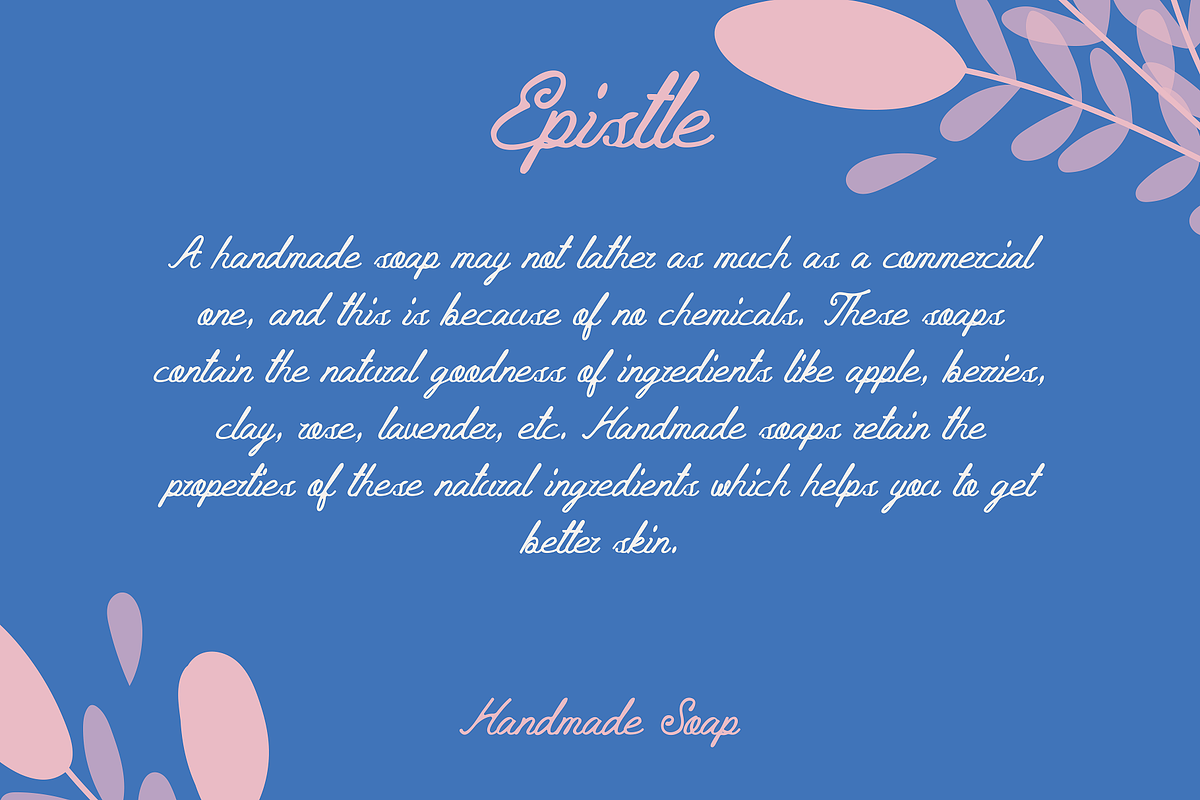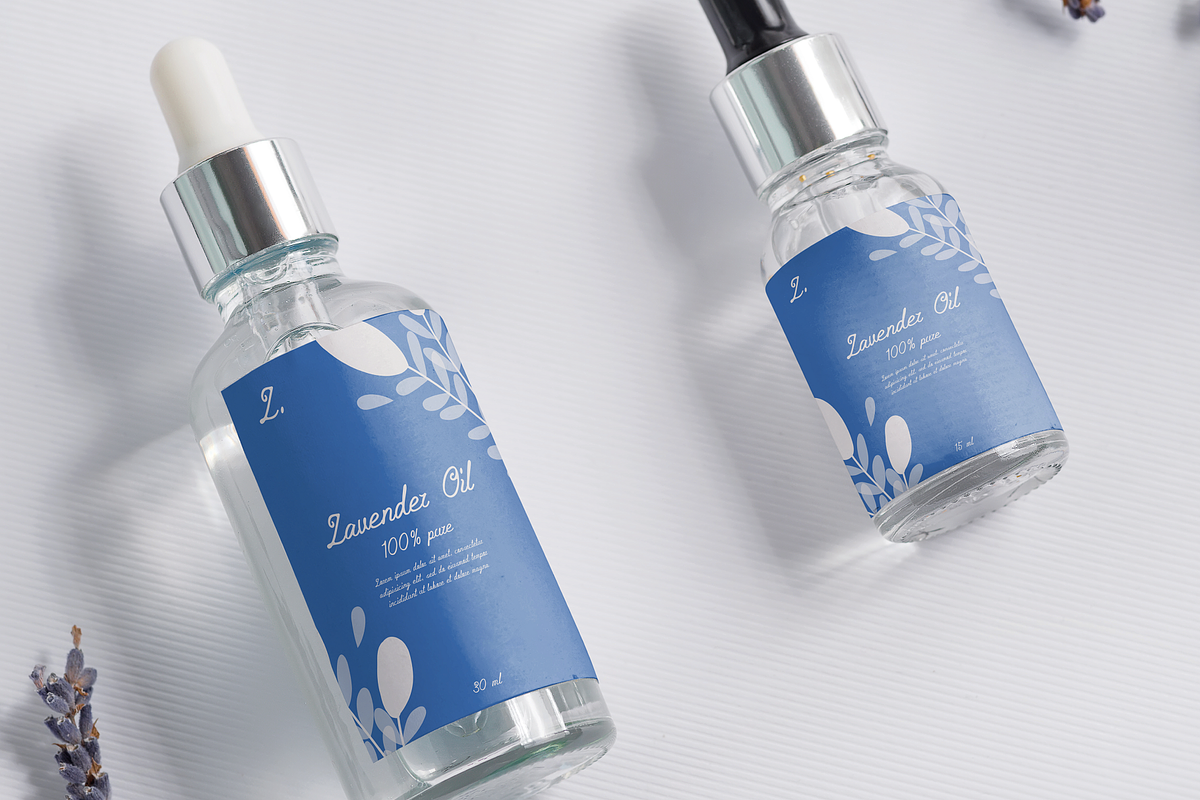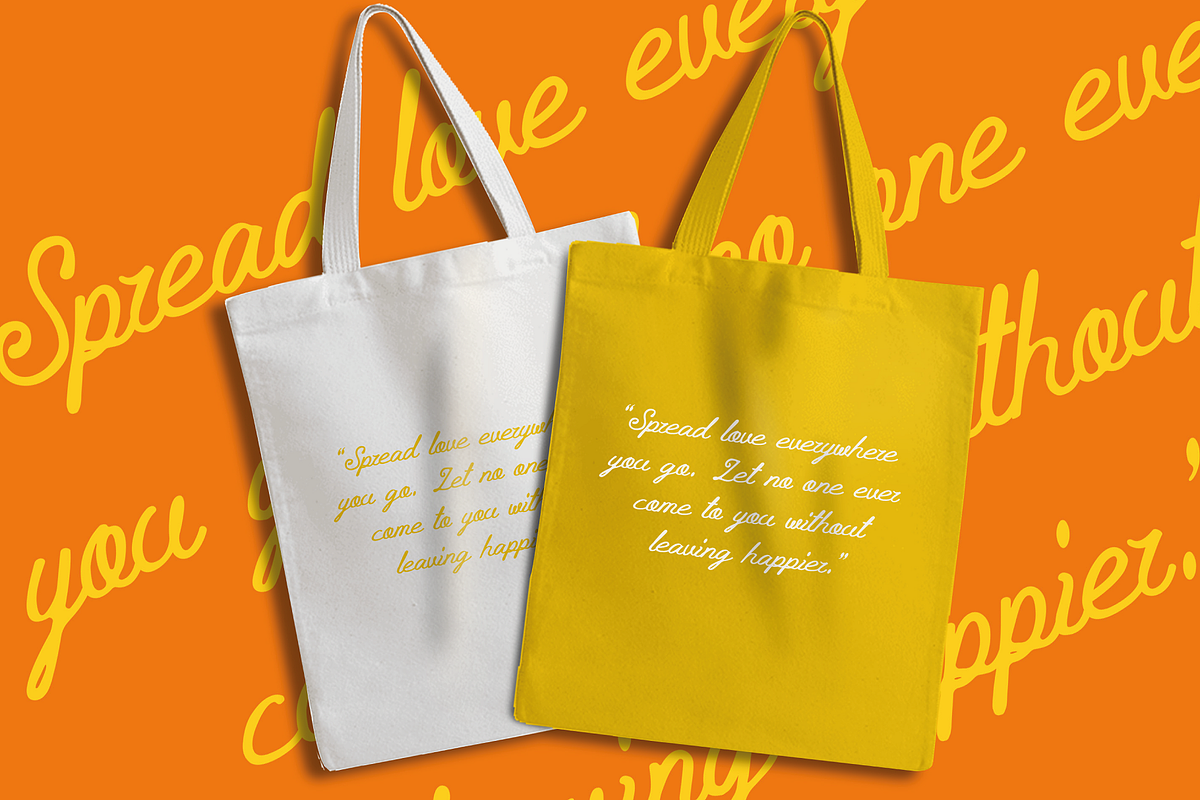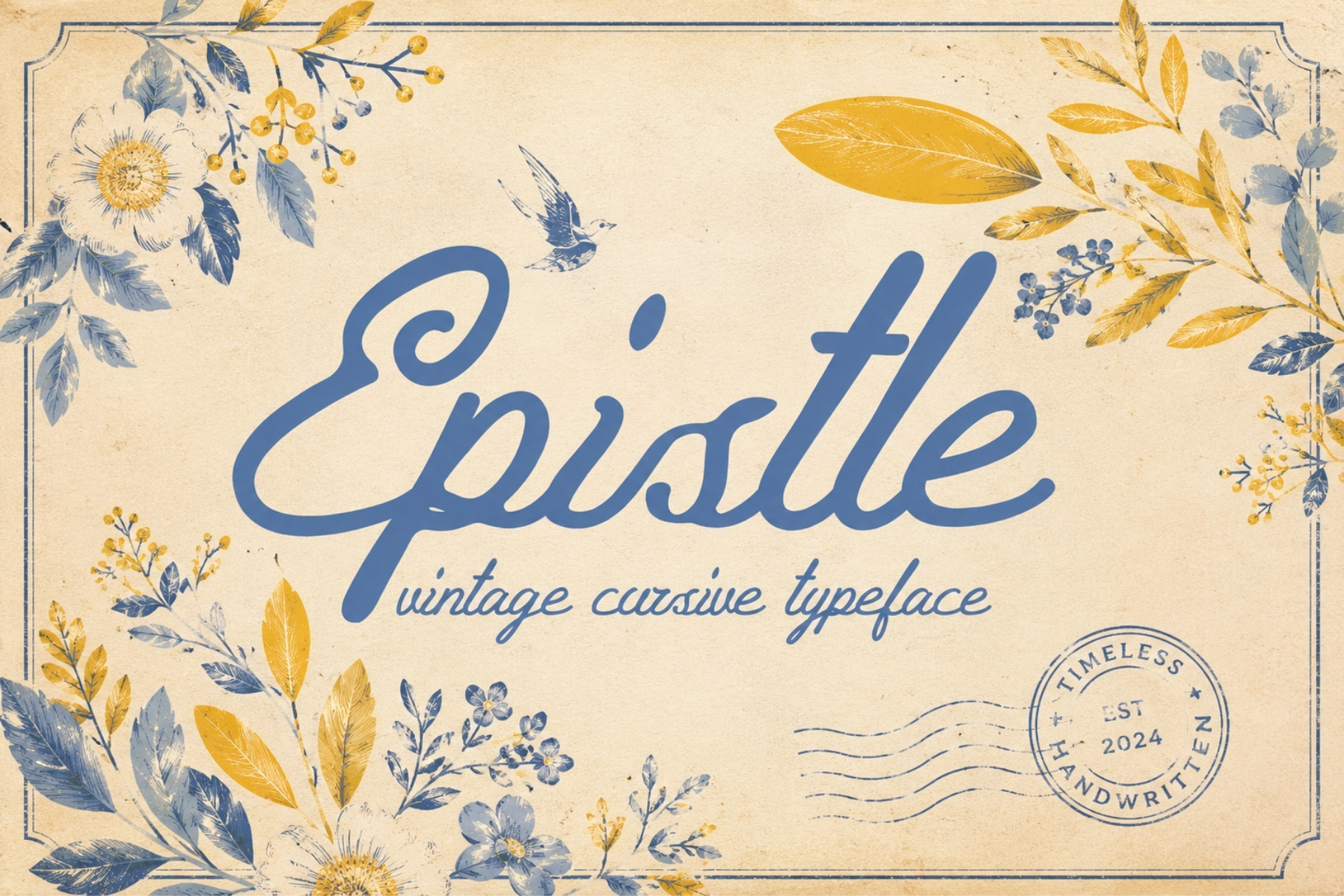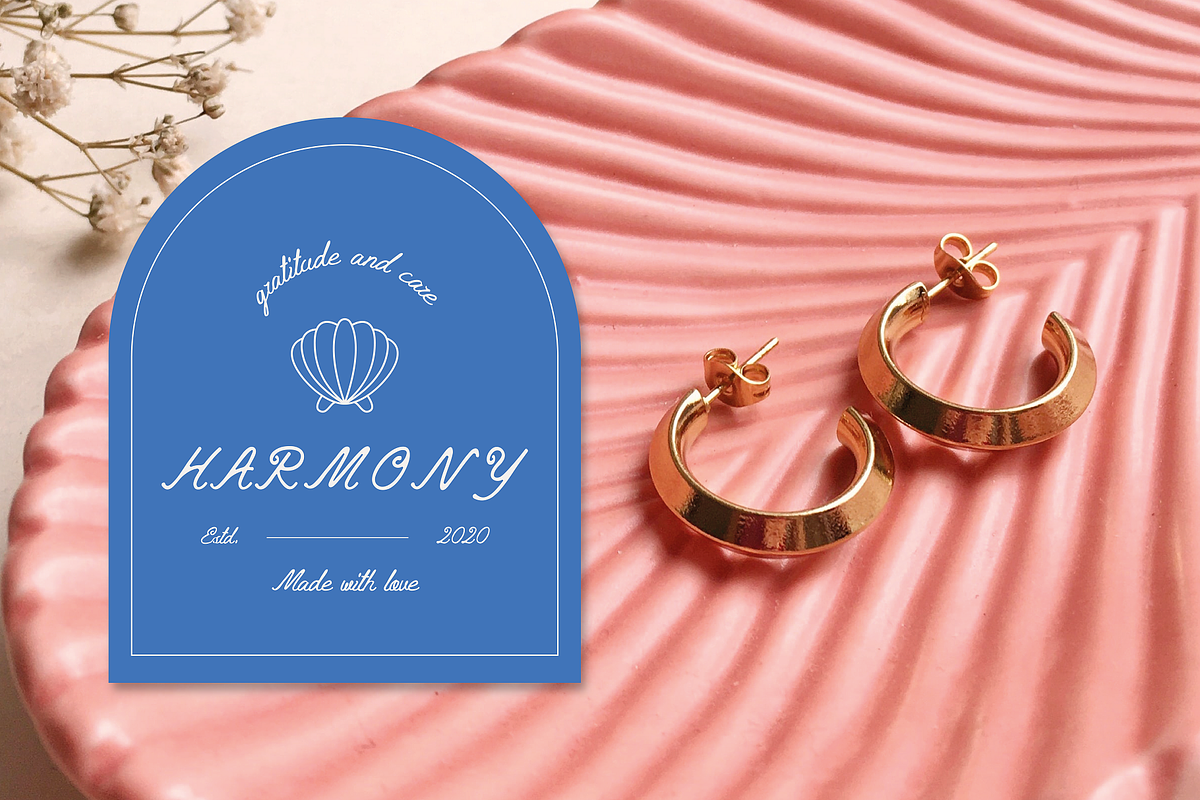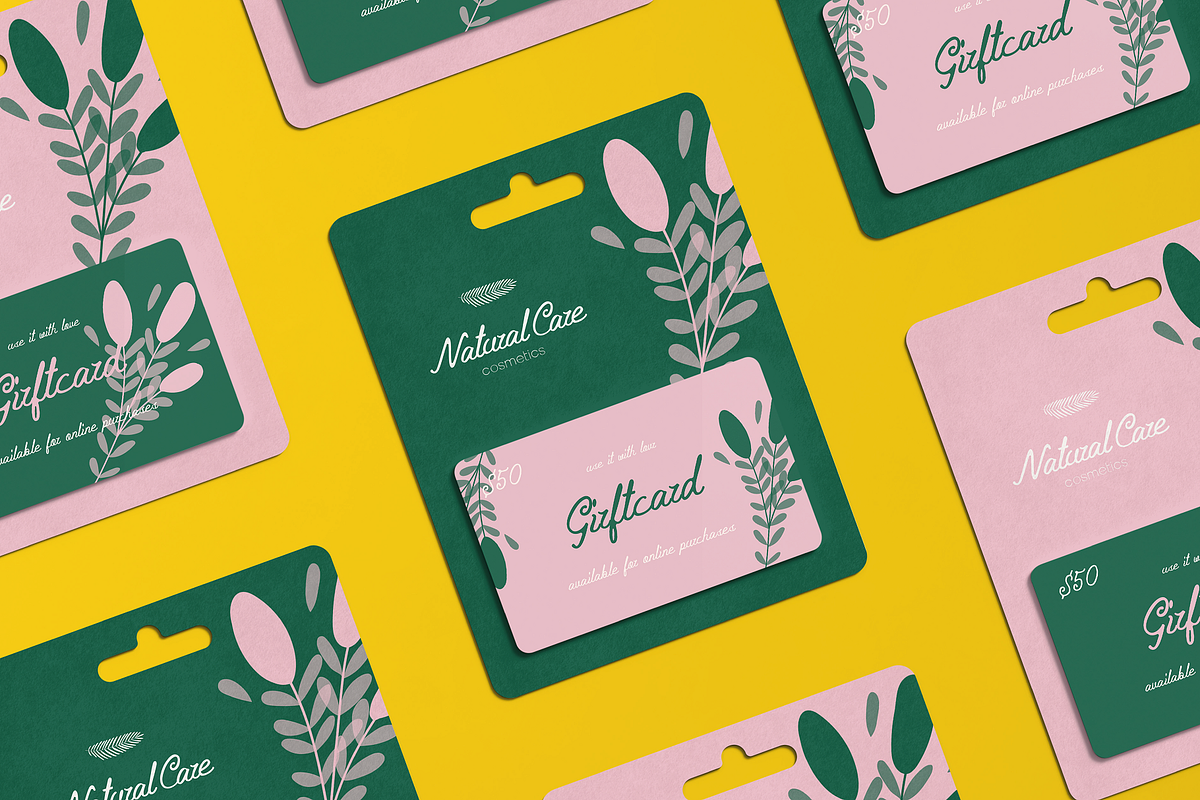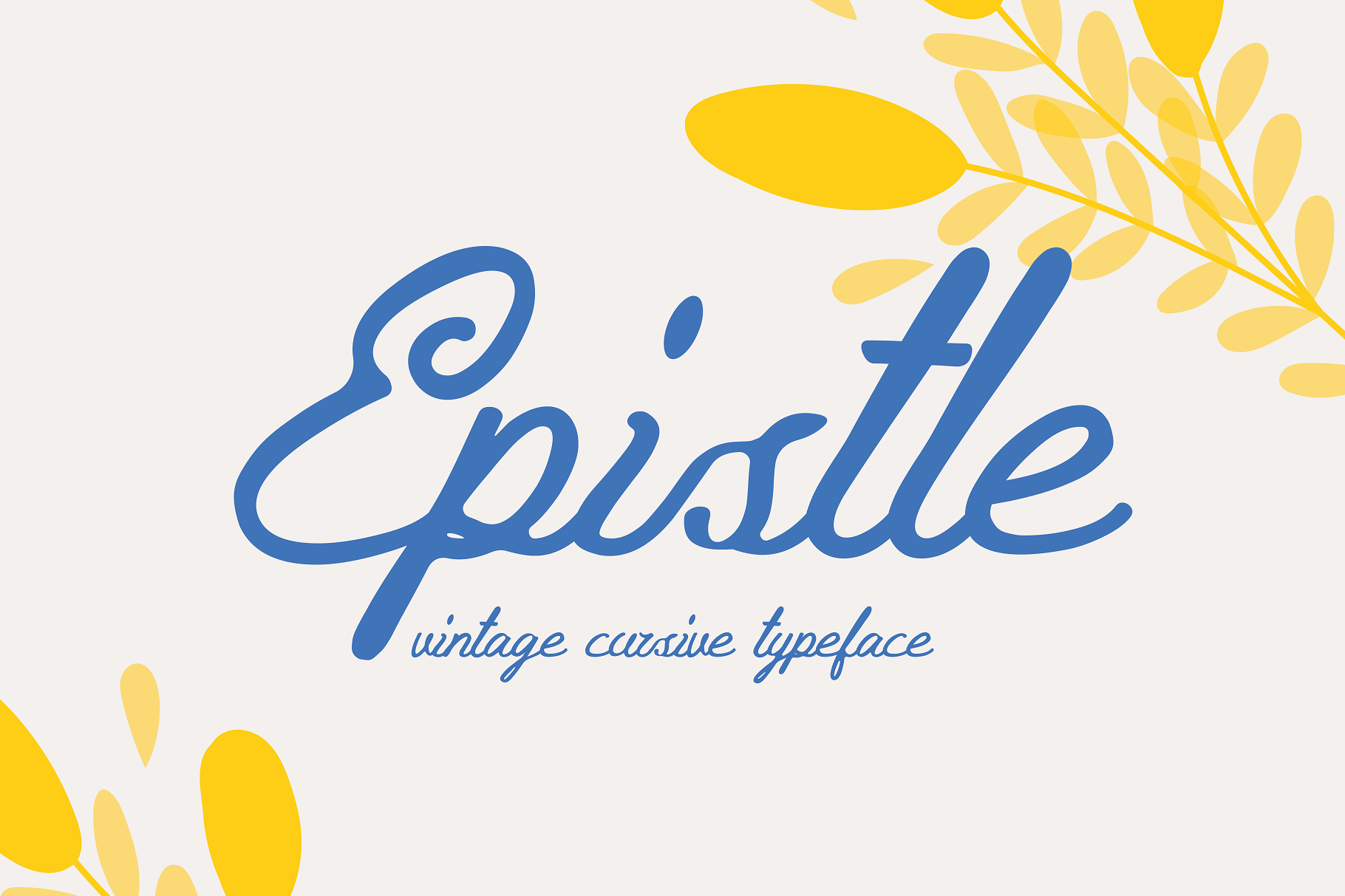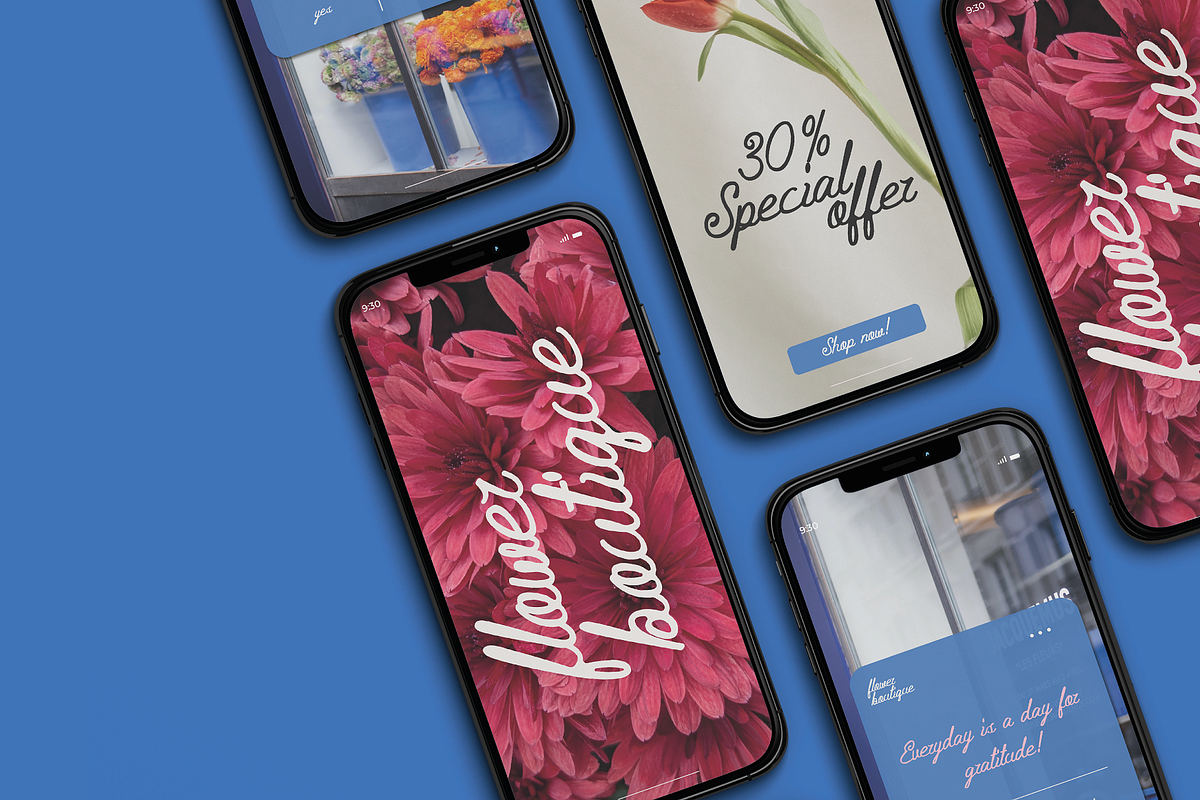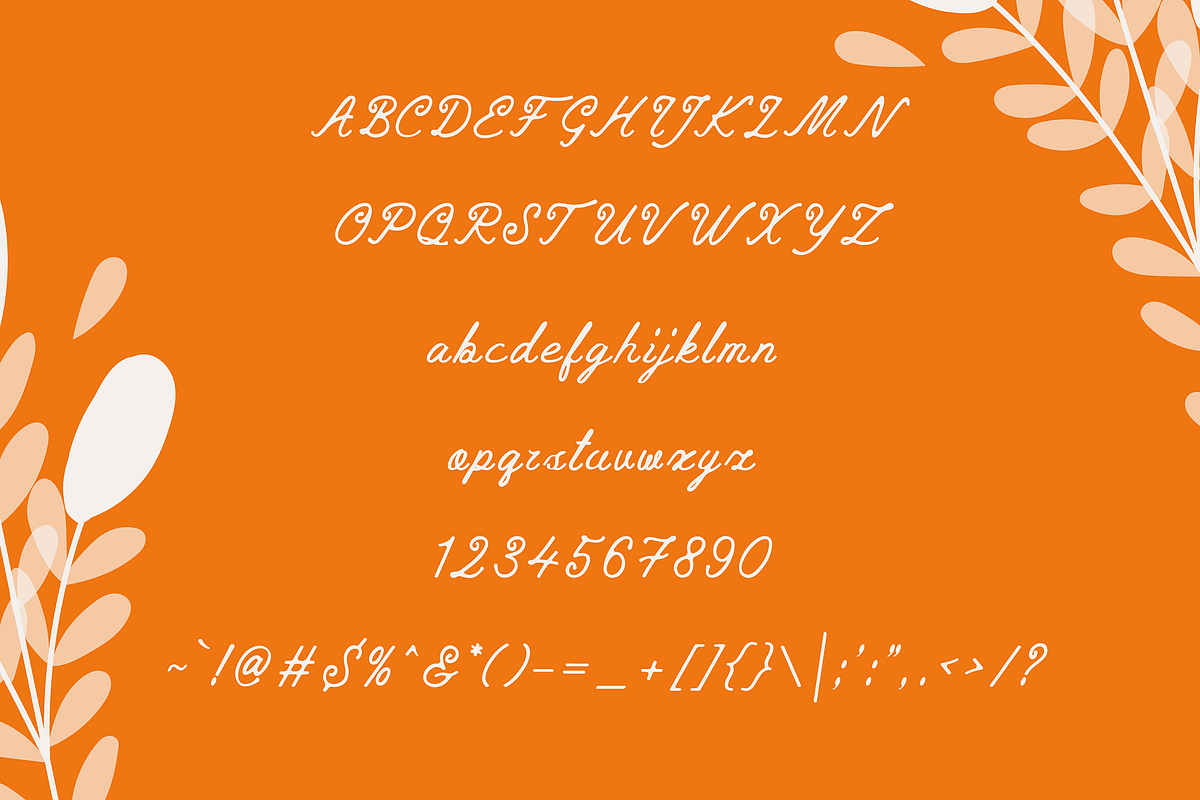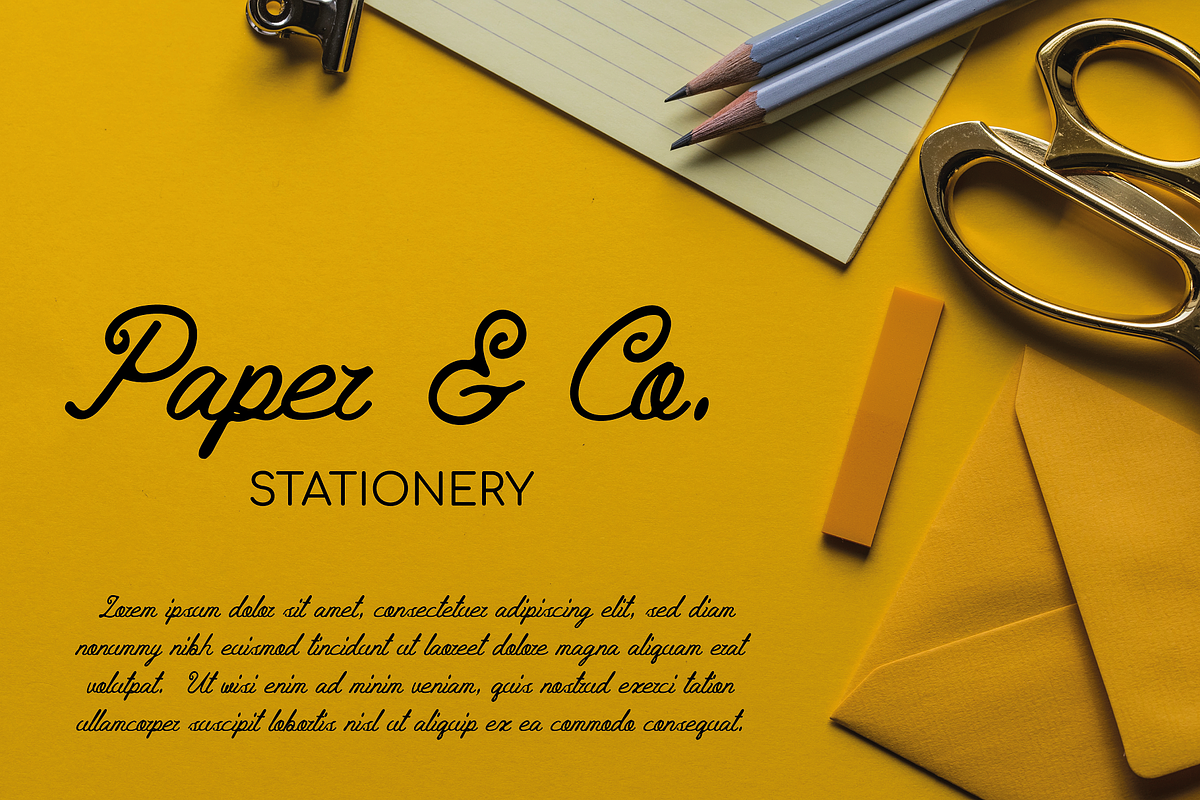
Epistle - Vintage Cursive Typeface
Epistle is a charming and quirky vintage cursive typeface that brings a touch of handmade charm to any design project. Its fluid curves and imperfect lines give it a distinct personality, evoking a sense of nostalgia for a bygone era.
Each letter feels like a personal note, as if it was written with care by hand. Despite its vintage feel, Epistle is versatile and can be used in a variety of contexts, from wedding invitations to branding and packaging. Its unique style is sure to catch the eye and add a playful touch to any design.